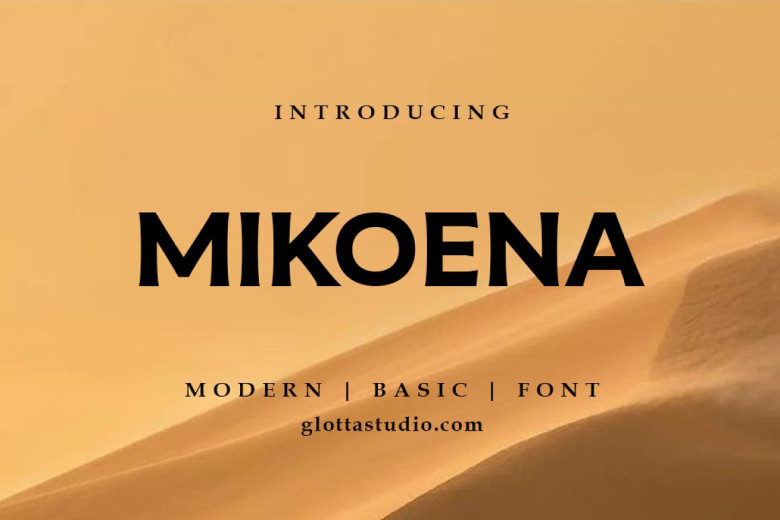
Mikoena Font
Mikoena is an iconic font that looks like classic cowboy text from America, classy yet straightforward and simple to use. Mikoena can be great choice for watermarks on posters, movie industry design quotes and quotes on album covers business cards and various design projects,
Mikoena will help your work or business take another step forward and it should definitely become part of your toolbox! With features that range from cowboy text appearance to American classicism; Mikoena should become part of your design toolkit
Mikoena Sans Serif Display Font